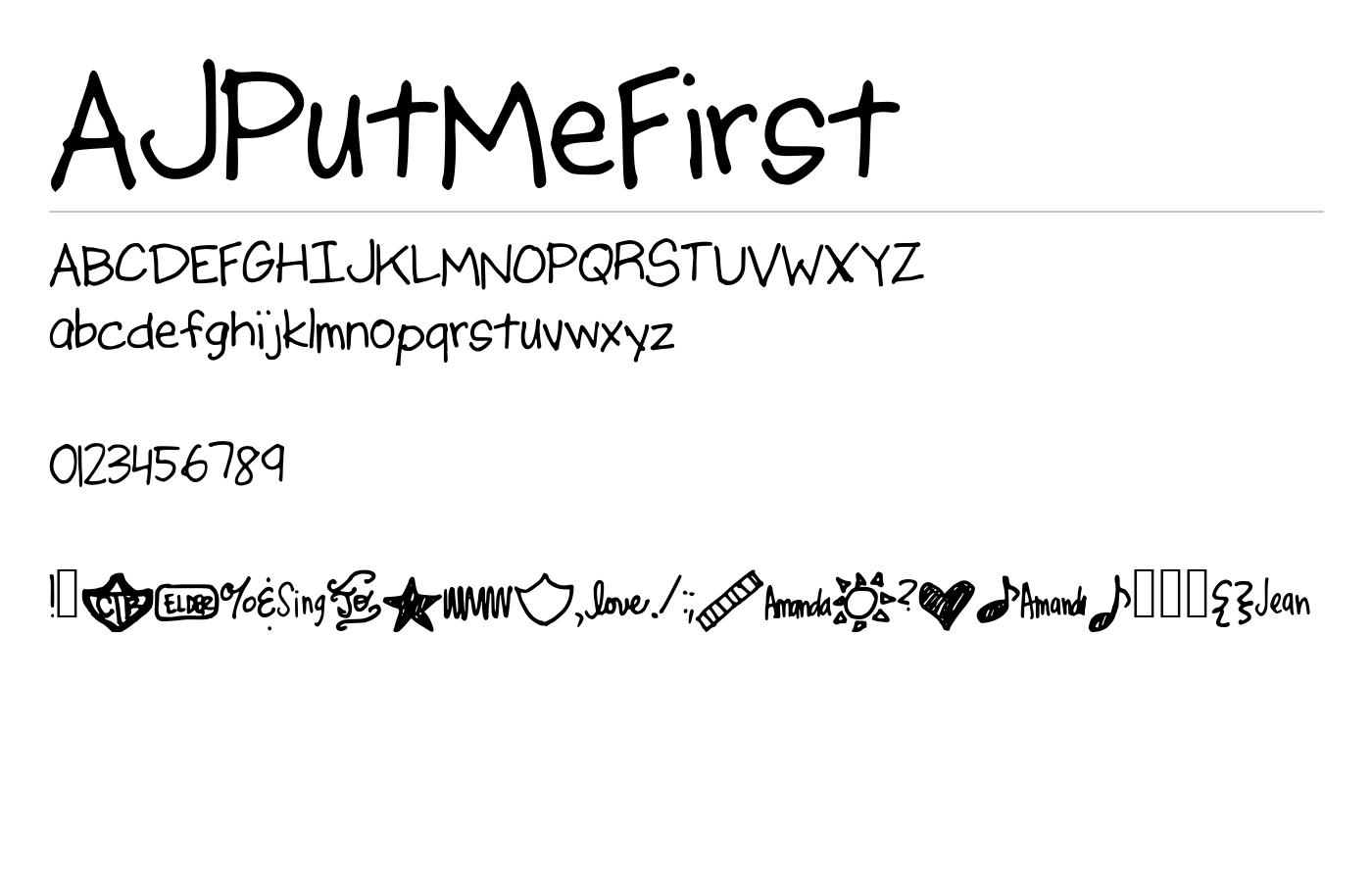
AJPutMeFirst is a playful, casual handwritten sans serif font with a light weight and tall, narrow letterforms that give it a friendly, informal vibe. Its irregular, hand-drawn style and quirky glyphs make it perfect for creative projects, children’s designs, and fun branding that aims to feel personal and approachable. This font works well for headlines, logos, and promotional materials where a relaxed and unique expression is desired.
AJPutMeFirst Font
About AJPutMeFirst Font